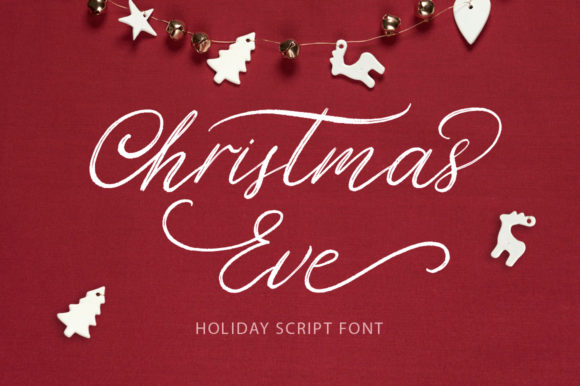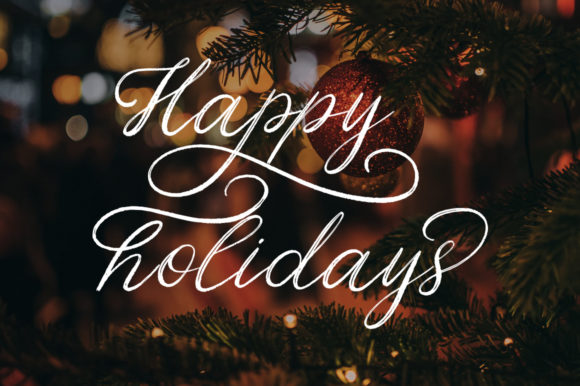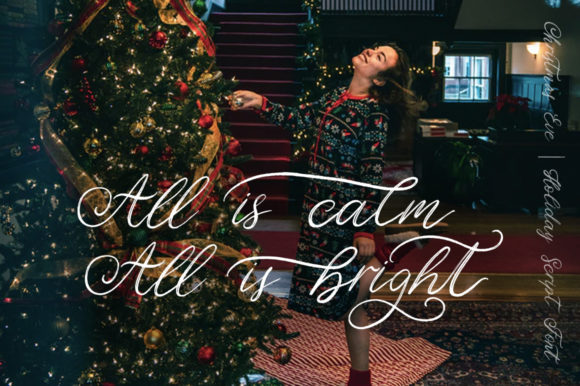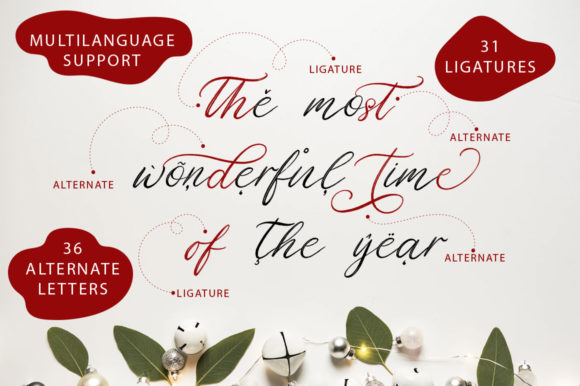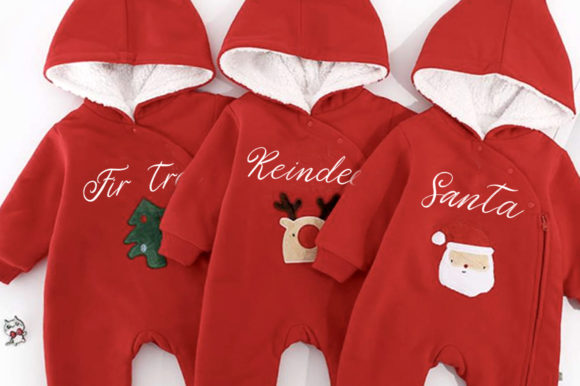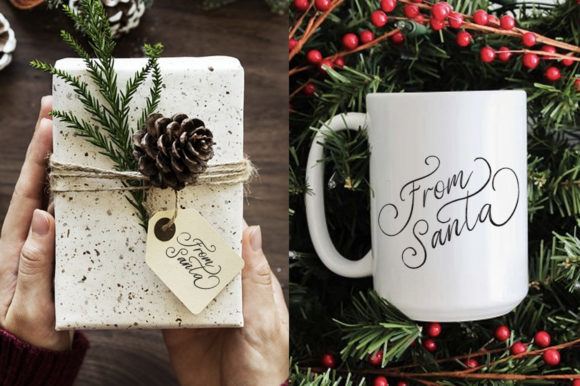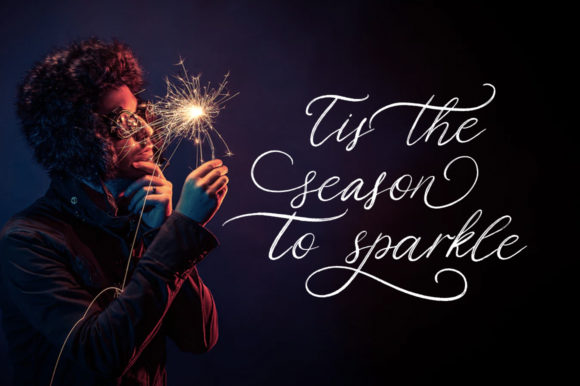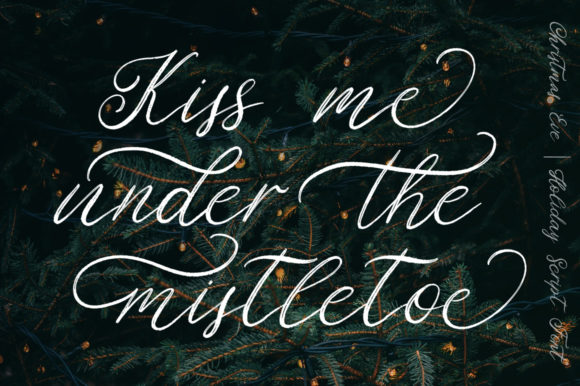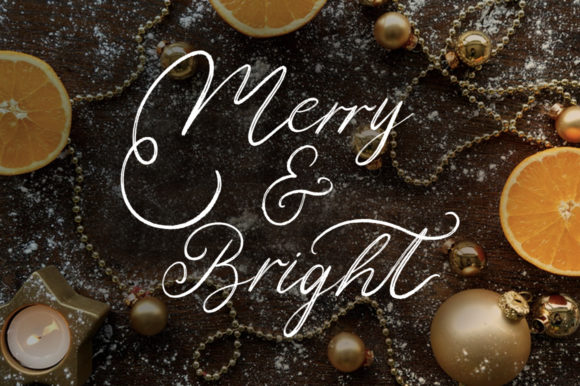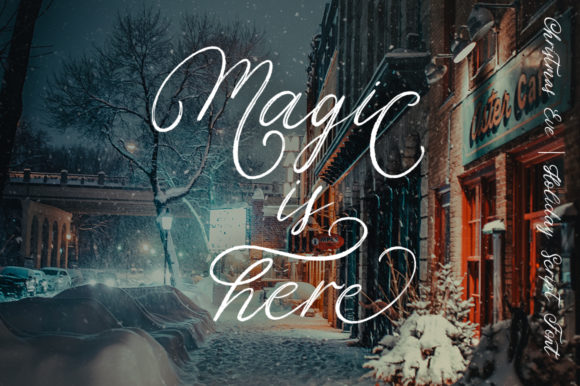
HomeScript FontsChristmas Eve Font Script Fonts Christmas Eve Font FacebookXPinterestWhatsApp Christmas Eve Font Poster 2 Christmas Eve Font Poster 3 Christmas Eve Font Poster 4 Christmas Eve Font Poster 5 Christmas Eve Font Poster 6 Christmas Eve Font Poster 7 Christmas Eve Font Poster 8 Christmas Eve Font Poster 9 Christmas Eve Font Poster 10 About Christmas Eve Font Christmas Eve is a stunningly bold and cozy script that’s perfect for all things Holiday. DOWNLOAD ON CREATIVE FABRICAThis font is sold and delivered by Creative Fabrica. Font Canyon may earn a commission if you buy through this link. People also explored Lunarbless Font Miracle Esmeralda Font Pink Cream Font Night Party Font Highsens Font Joice Colin Font Bounce Script Bigtion Deluxe Font 365 0 TagsChristmas Eve Font Previous articleWhite Sand FontNext articleYoura Font LEAVE A REPLY Cancel reply Comment: Please enter your comment! Name:* Please enter your name here Email:* You have entered an incorrect email address! Please enter your email address here Website: Save my name, email, and website in this browser for the next time I comment. Personal Use Free Rasiday Personal Use Free Read more about this font Rionaldo Angelo Personal Use Free Read more about this font The Sweet Neo Personal Use Free Read more about this font Muthiara Font Personal Use Free Read more about this font BLOG Elegant Wedding Invitation Fonts – Handwritten & Script Fonts Elegant Wedding Invitation Fonts Your wedding day is one of the most important moments of your life, and every detail matters—including your invitation design. Our... Exploring Font Trends Where to Buy American Fonts Online in 2024 Best Fonts for T-Shirt Design – Top 2025 Picks